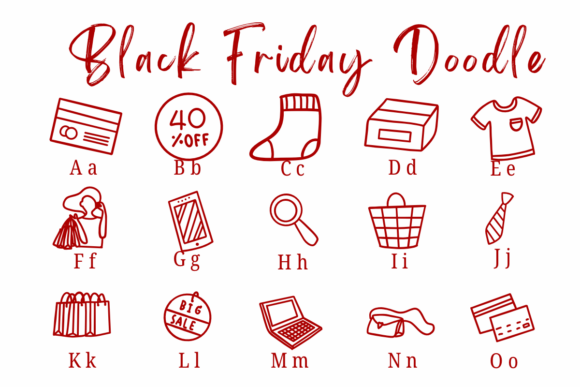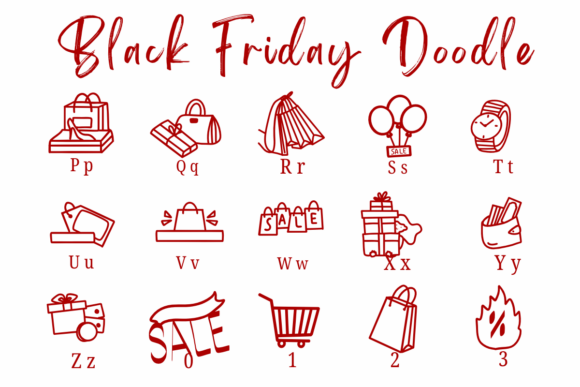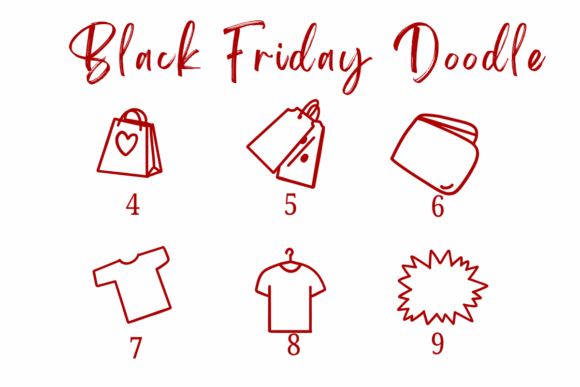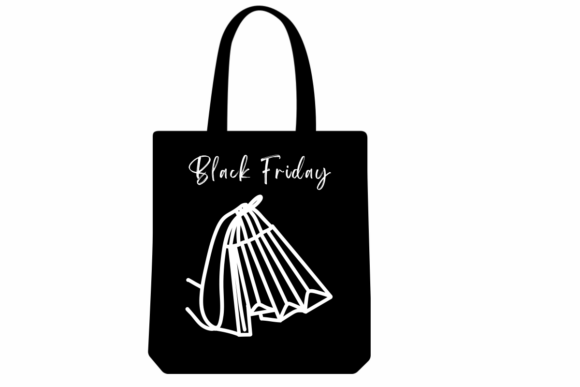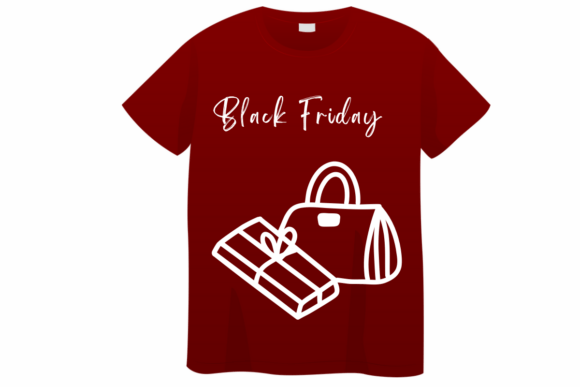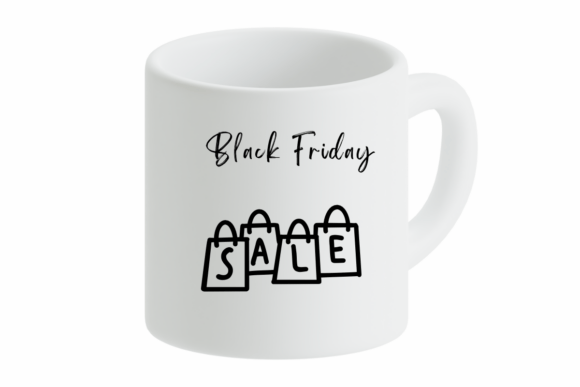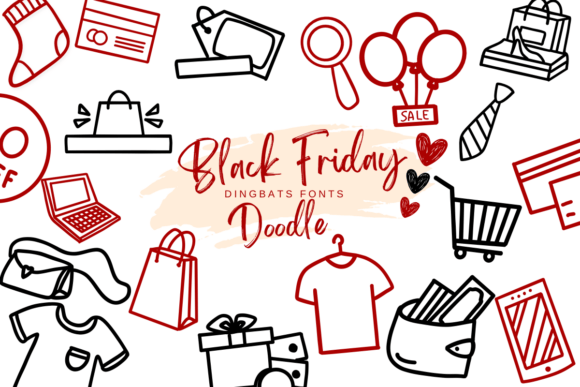
Introducing the Black Friday Doodle Font: Add a Festive Touch to Your Designs
Are you looking for a unique and playful way to add some excitement to your Black Friday designs? Look no further than the Black Friday Doodle Font! This delightful font features a collection of fun and playful icons that represent the thrill of Black Friday shopping. From shopping bags and discount tags to sale signs and festive decorations, this font is perfect for creating eye-catching invitations, flyers, or social media posts that will grab the attention of your audience.
What is the Black Friday Doodle Font?
The Black Friday Doodle Font is a dingbat font that consists of a wide range of icons and symbols that evoke the spirit of Black Friday shopping. The font features a playful and hand-drawn style, making it perfect for adding a personal touch to your designs. Whether you’re a designer, crafter, or simply someone who loves to get creative, this font is sure to inspire you to create something amazing.
Key Features of the Black Friday Doodle Font
• Fun and playful icons: The font features a wide range of fun and playful icons that represent the excitement of Black Friday shopping.
• Hand-drawn style: The font has a hand-drawn style that adds a personal touch to your designs.
• Wide range of symbols: The font includes a wide range of symbols, including shopping bags, discount tags, sale signs, and festive decorations.
• Perfect for Black Friday designs: The font is specifically designed for Black Friday designs, making it perfect for creating eye-catching invitations, flyers, or social media posts.
Uses for the Black Friday Doodle Font
The Black Friday Doodle Font is perfect for a wide range of design projects, including:
• Invitations: Create eye-catching invitations for Black Friday sales or events.
• Flyers: Design flyers that showcase your Black Friday deals and discounts.
• Social media posts: Add a festive touch to your social media posts and make your Black Friday deals stand out.
• Signs and banners: Use the font to create signs and banners that advertise your Black Friday sales.
Tips for Using the Black Friday Doodle Font
Here are a few tips for getting the most out of the Black Friday Doodle Font:
• Experiment with different colors: The font looks great in a wide range of colors, so don’t be afraid to experiment and find the perfect color scheme for your design.
• Mix and match icons: The font includes a wide range of icons, so try mixing and matching them to create a unique and eye-catching design.
• Use it with other fonts: The Black Friday Doodle Font pairs well with a wide range of other fonts, so try using it with your favorite font to create a unique and interesting design.
The Black Friday Doodle Font is a fun and playful font that is perfect for adding a festive touch to your Black Friday designs. With its wide range of icons and hand-drawn style, this font is sure to inspire you to create something amazing. Whether you’re a designer, crafter, or simply someone who loves to get creative, this font is a must-have for any Black Friday design project.